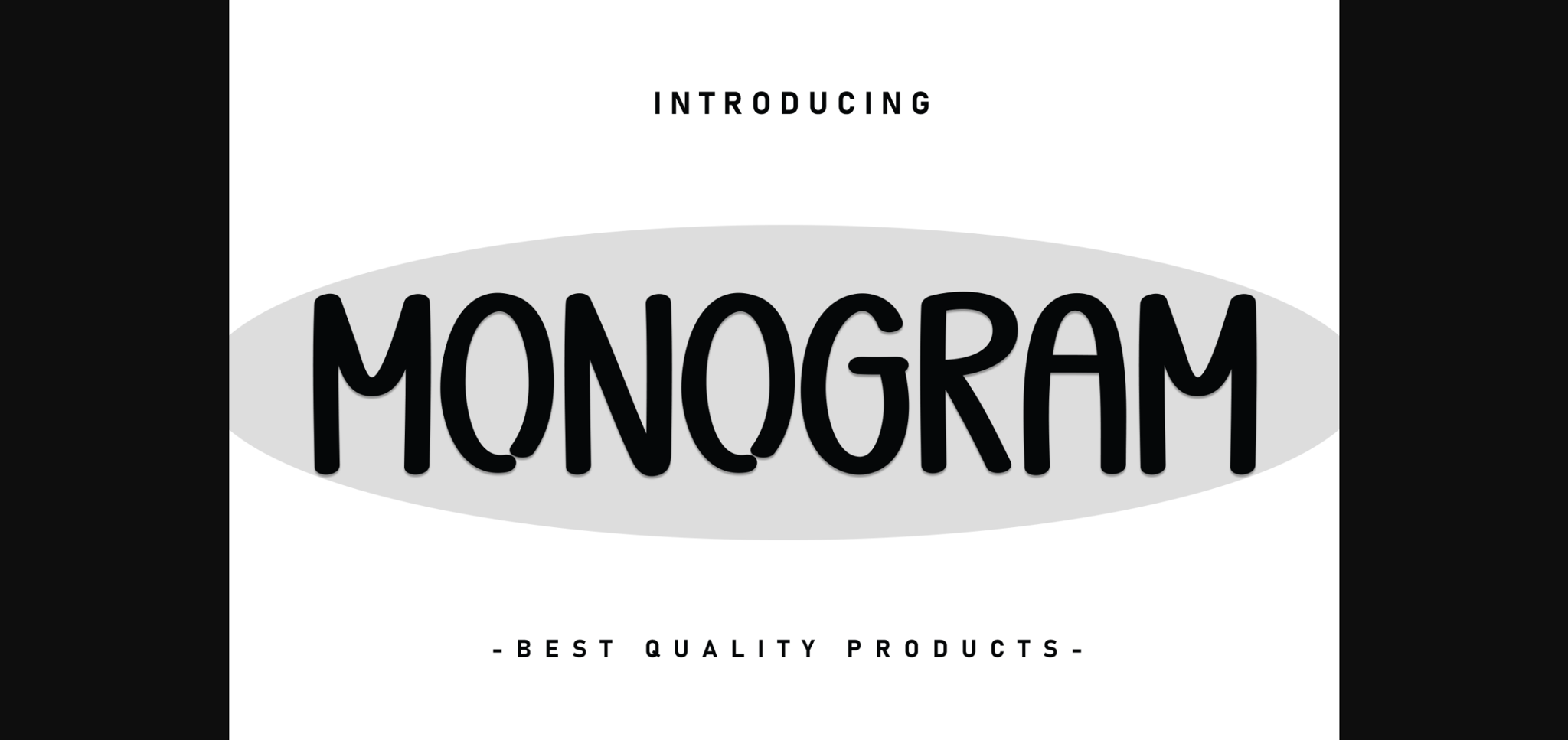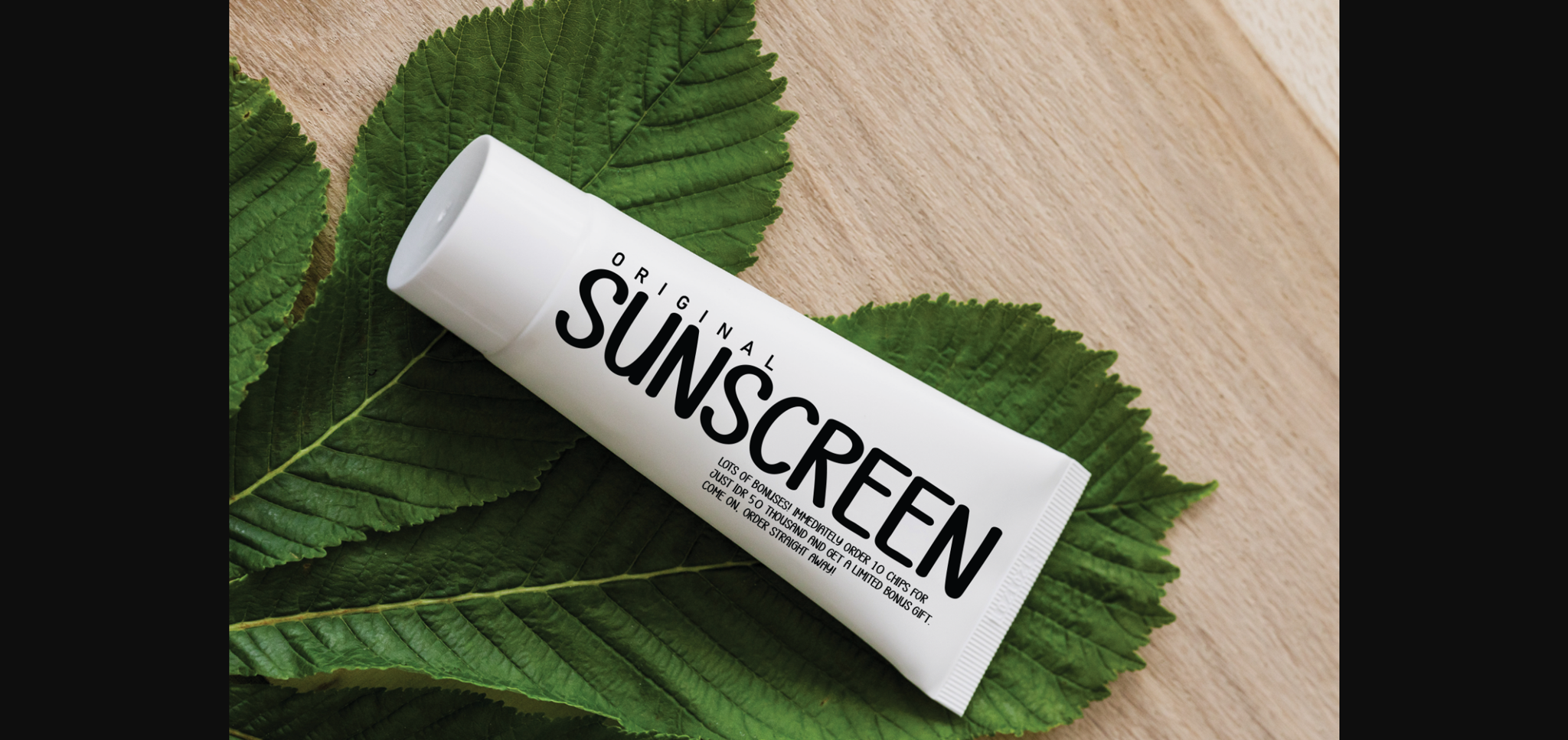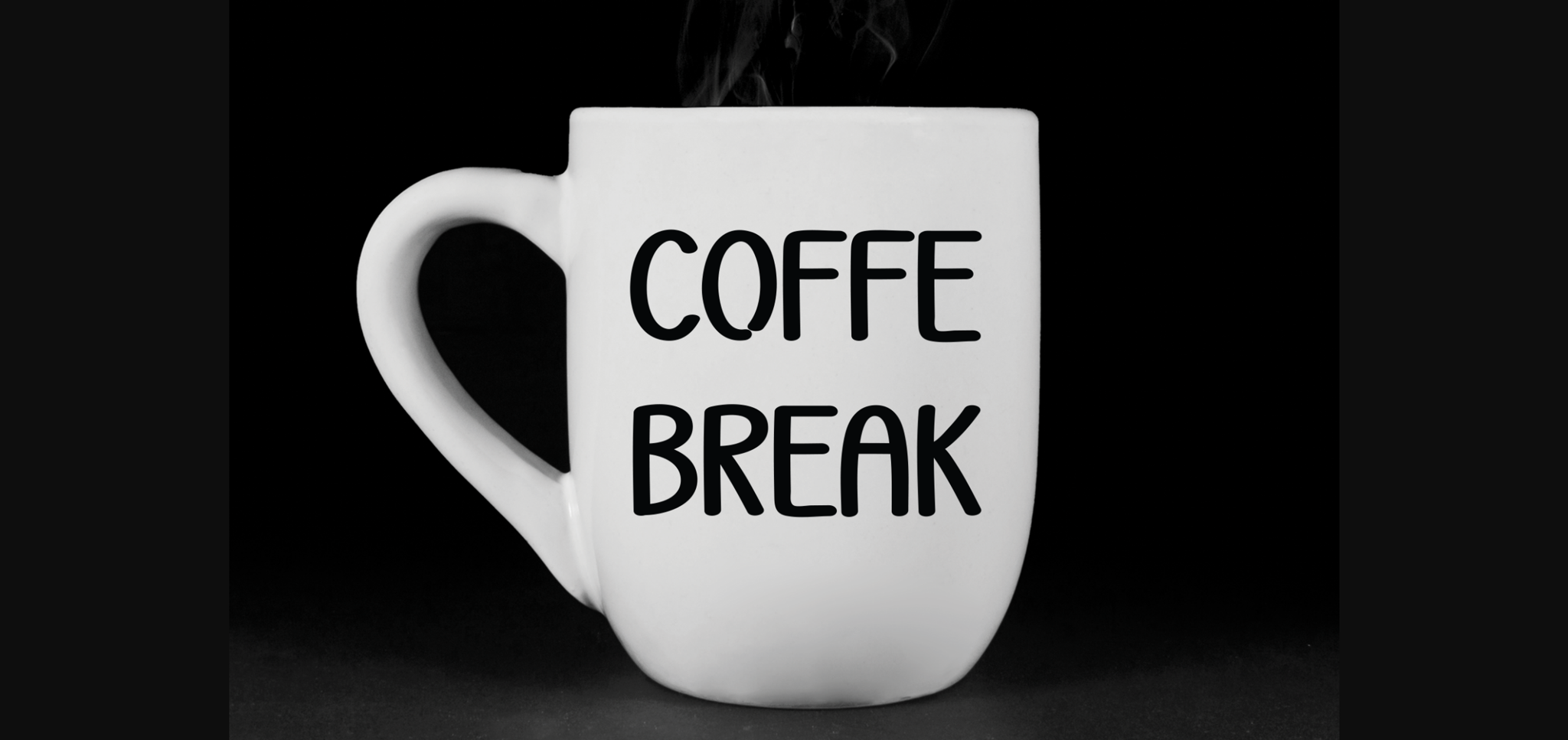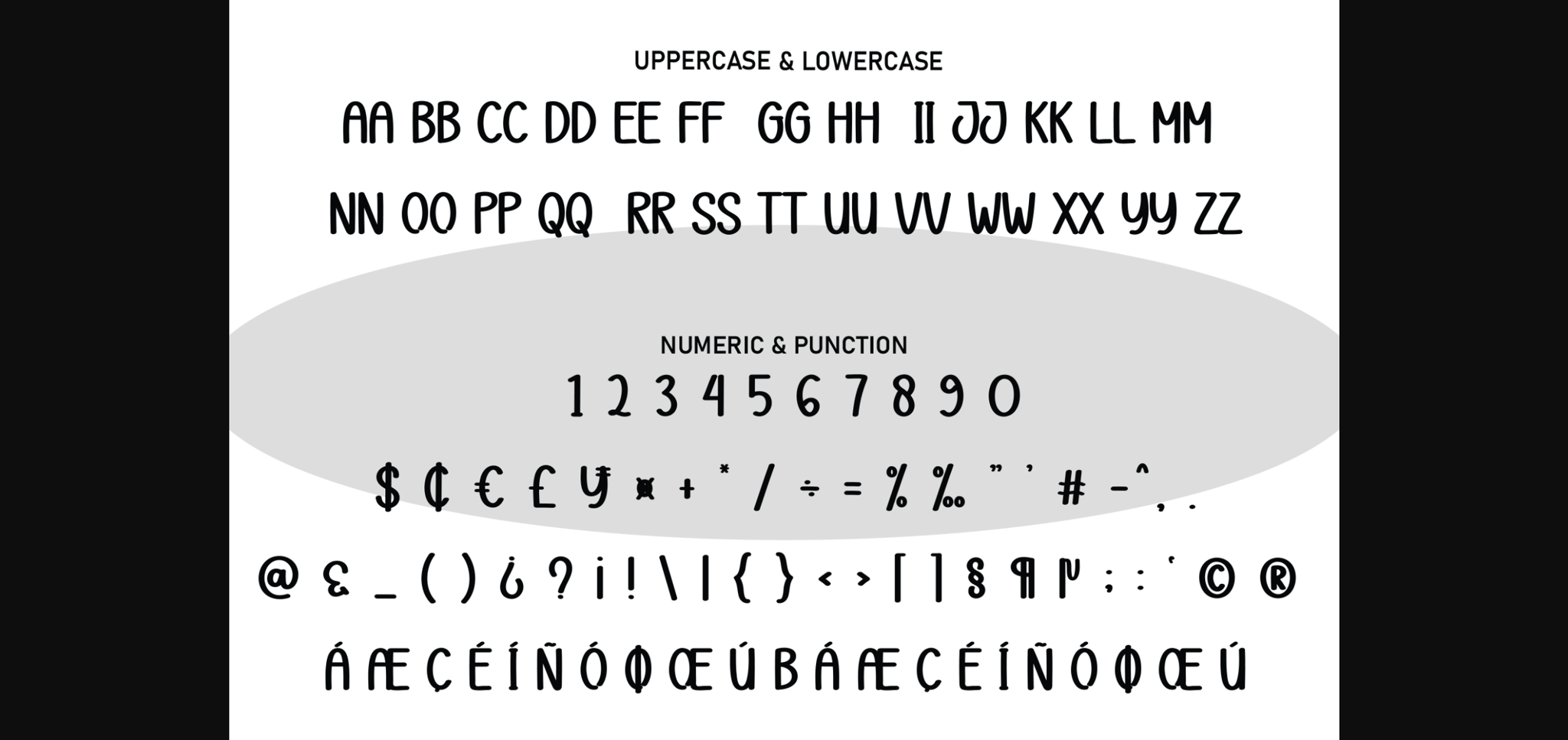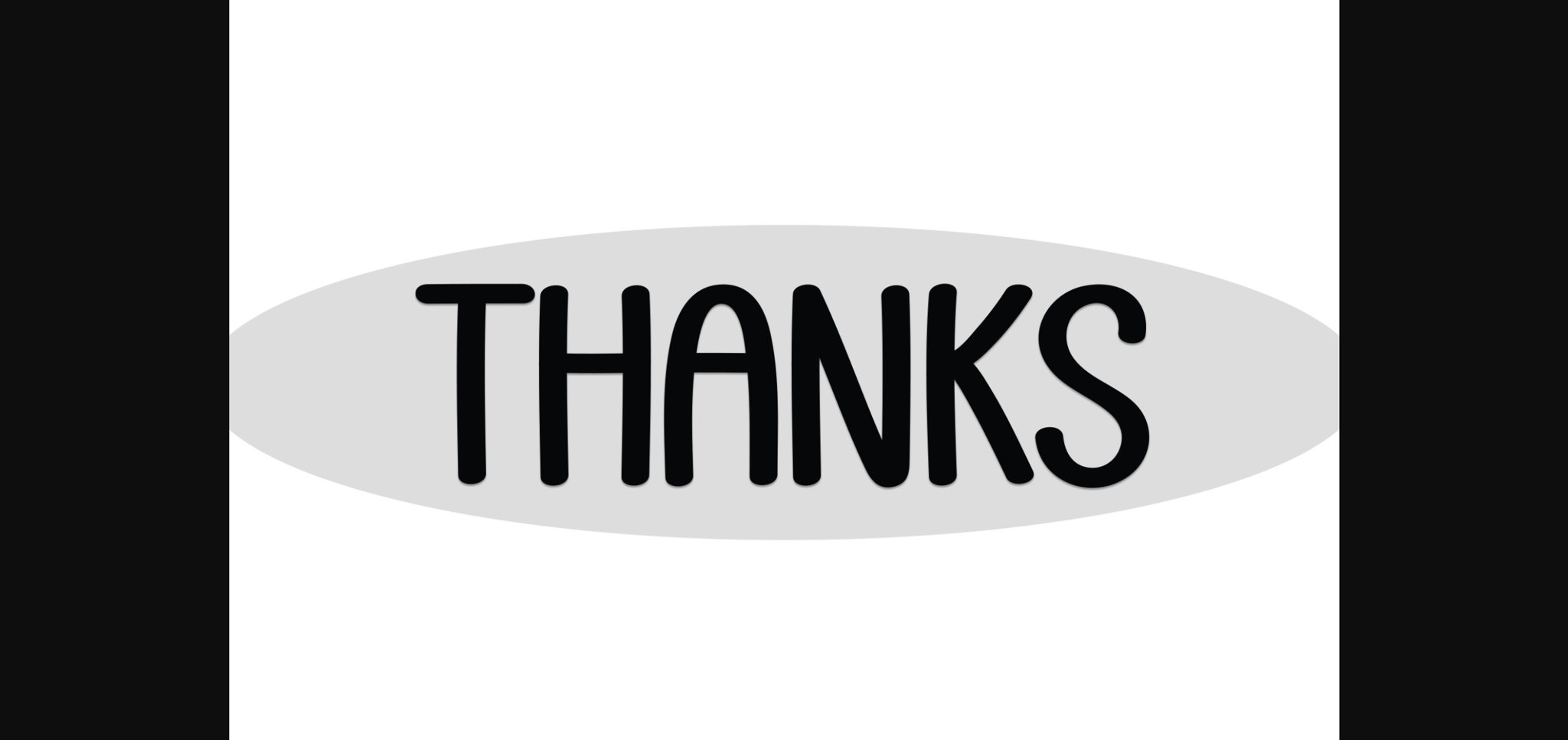
HomeSans Serif FontsMonogram Font Sans Serif Fonts Monogram Font FacebookXPinterestWhatsApp 1 of 8 ... Monogram Font Poster 2... Monogram Font Poster 3... Monogram Font Poster 4... Monogram Font Poster 5... Monogram Font Poster 6... Monogram Font Poster 7... Monogram Font Poster 8... About Monogram Font Monogram is a neat and beautiful sans-serif font described by an elegant touch, perfect for your favorite projects. Fall in love with its incredibly distinct and timeless style, and use it to create spectacular designs! DOWNLOAD NOW People also explored Hellotropica Font Daring Font Love Things Font Amsterdam Font About Loving Font Simple Wedding Decorative Font Sherlita Font Funkydori Family Font Birdrockers Font 355 0 TagsMonogram Font Previous articleFuture FontNext articleMedium Font LEAVE A REPLY Cancel reply Comment: Please enter your comment! Name:* Please enter your name here Email:* You have entered an incorrect email address! Please enter your email address here Website: Save my name, email, and website in this browser for the next time I comment. Personal Use Free Cosmos Personal Use Free Read more about this font Simple Personal Use Free Read more about this font Bashira Personal Use Free Read more about this font Engine Personal Use Free Read more about this font BLOG Free vs Paid Fonts: Why Investing in Premium Fonts Is Worth It Free vs Paid Fonts: Why Premium Fonts Are Worth It in 2025 The debate of free vs paid fonts continues in the design world. While... Top 10 Handwritten Fonts That Elevate Your Designs How to Install and Use Fonts on Windows, macOS, and Web Projects Fonts That Capture the Spirit of New York City